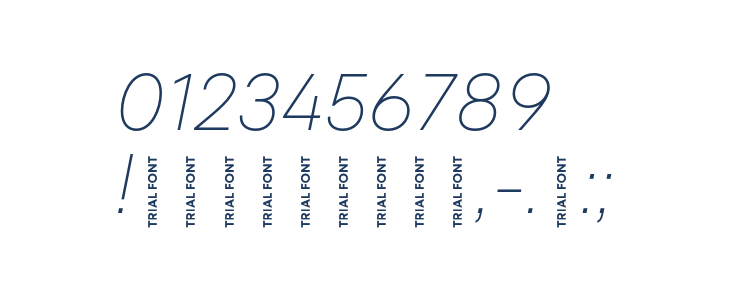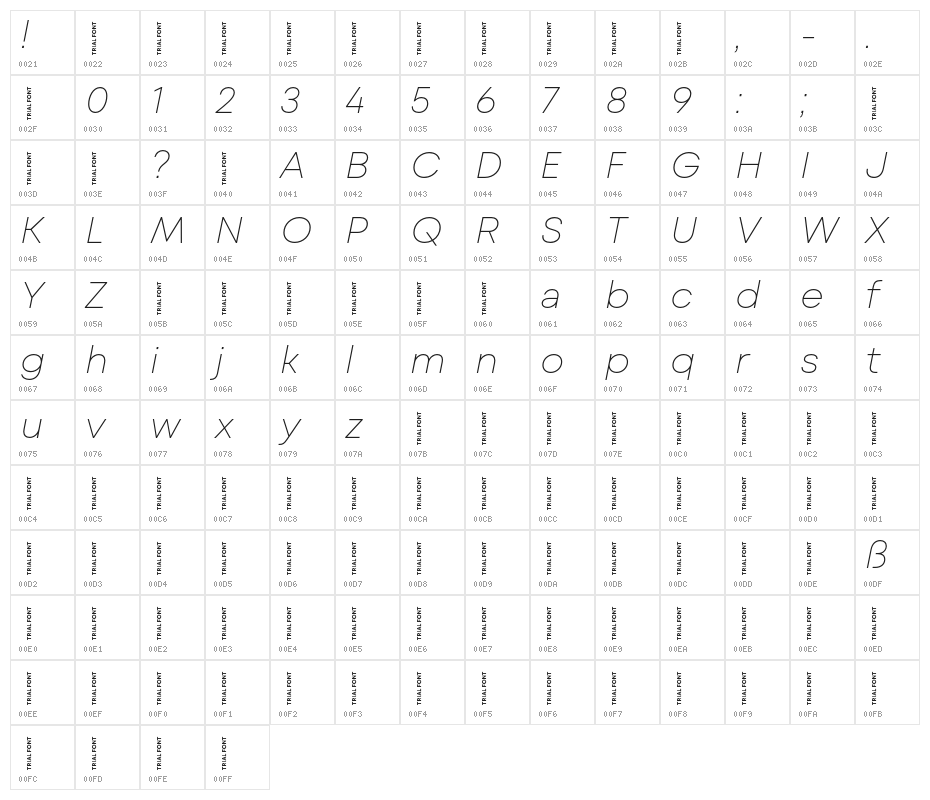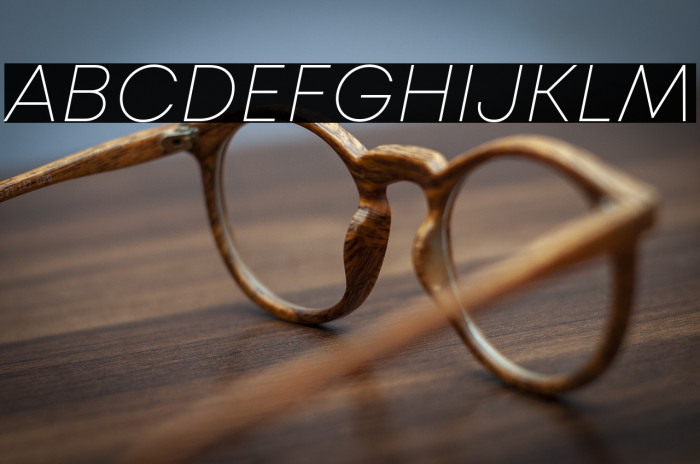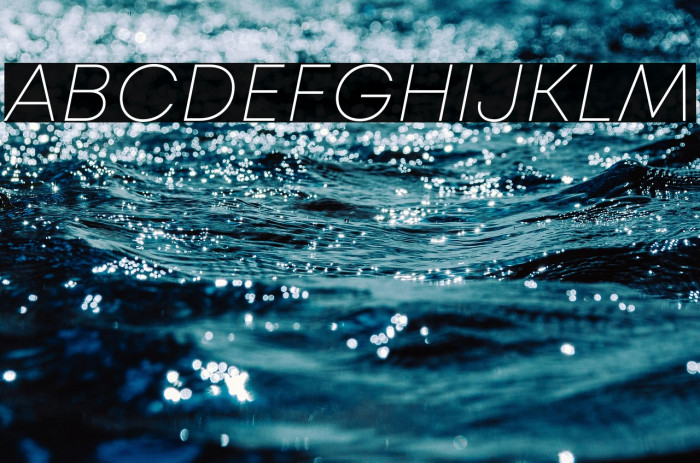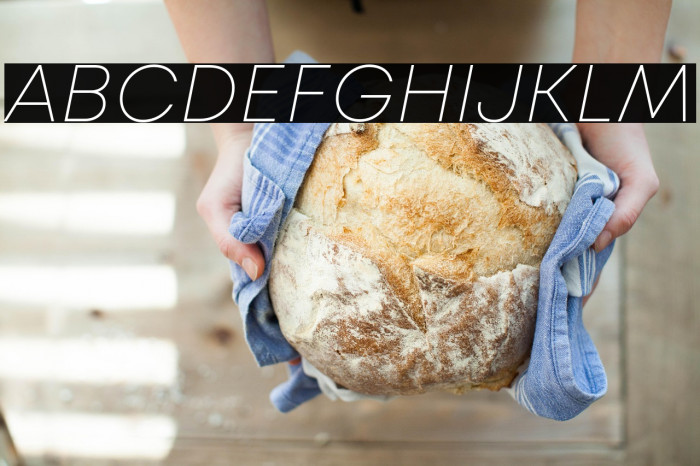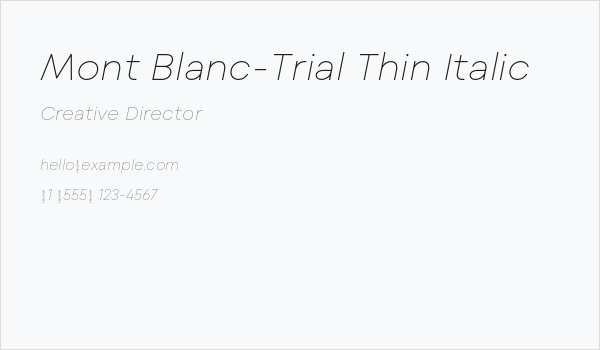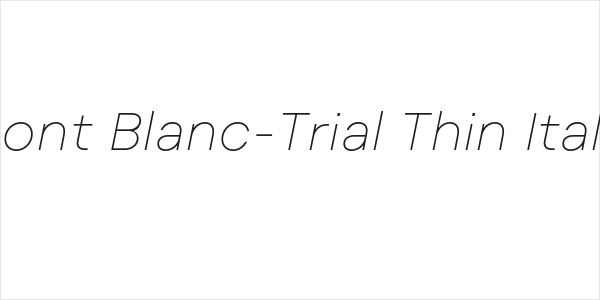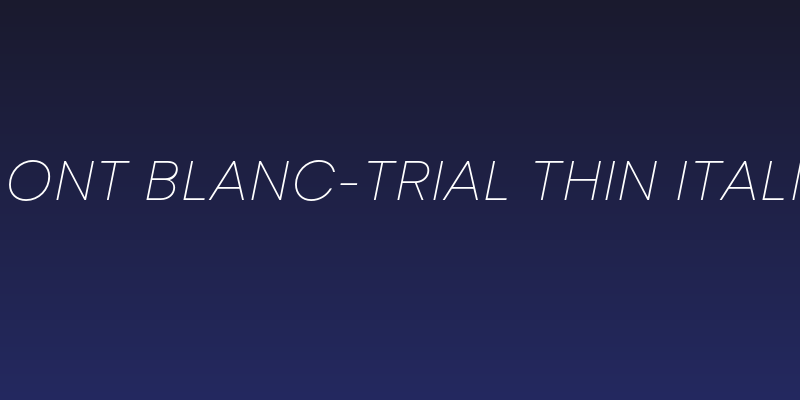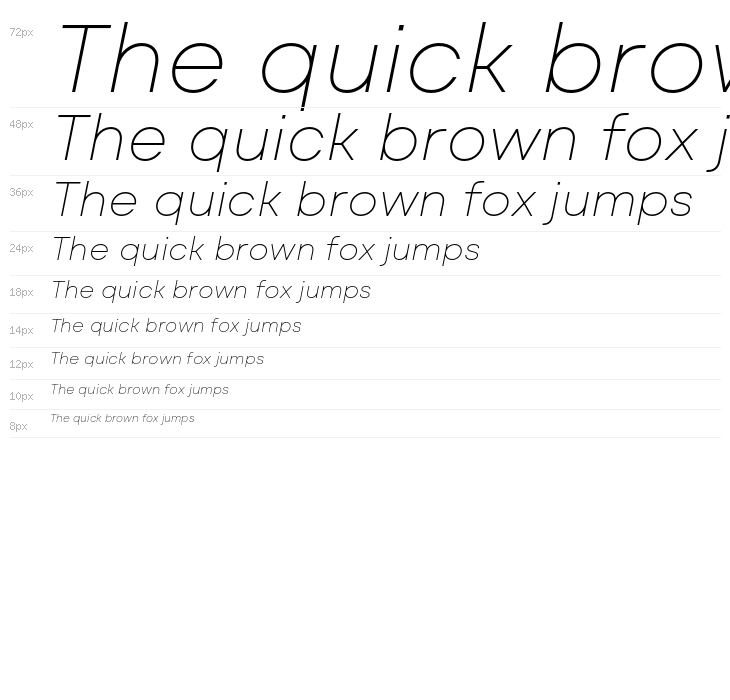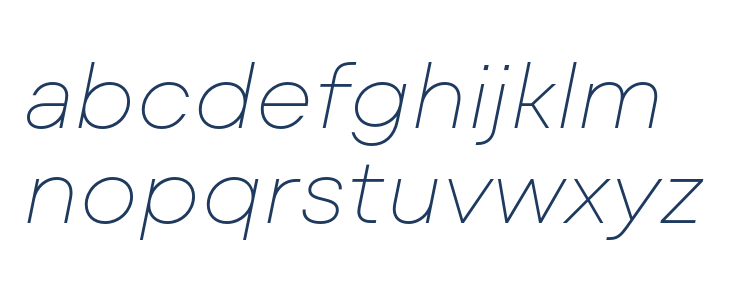
Mont Blanc-Trial Thin Italic Font
Mont Blanc-Trial Thin Italic Description
This font features a sleek and elegant design with thin, elongated letterforms that convey a sense of modernity and sophistication. The italic style adds a dynamic and fluid touch, making it suitable for creative and contemporary projects. The characters are well-spaced, ensuring readability while maintaining a stylish appearance. The font's thin strokes and minimal contrast give it a refined and airy feel, perfect for projects that require a light and graceful aesthetic.
| Proposed Projects | Ideal for fashion magazines, luxury branding, modern websites, and elegant invitations. |